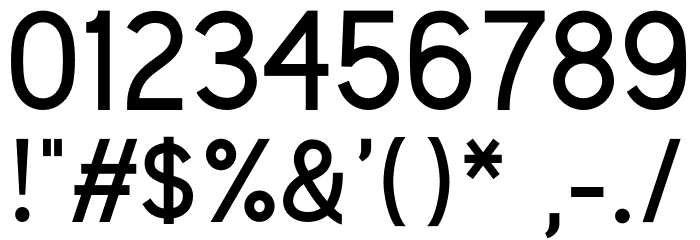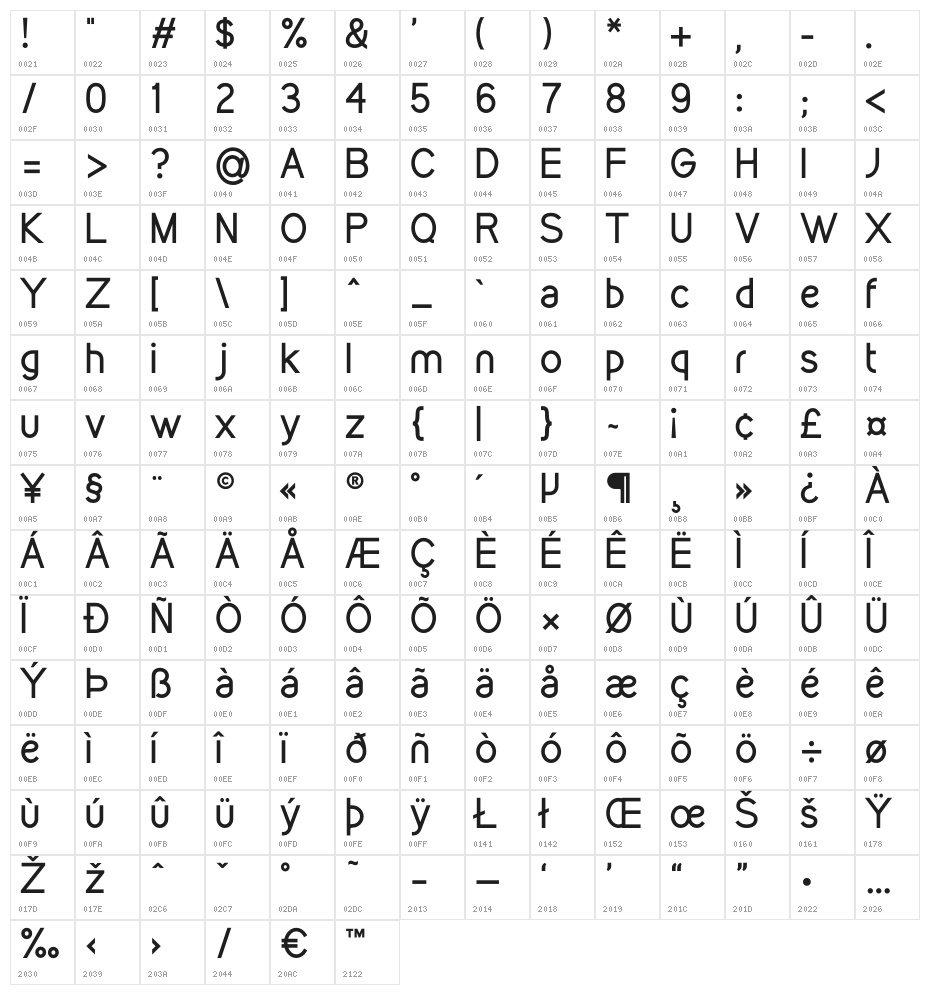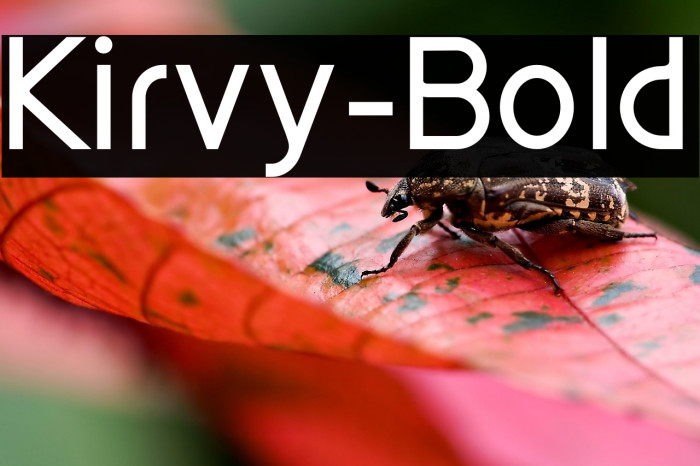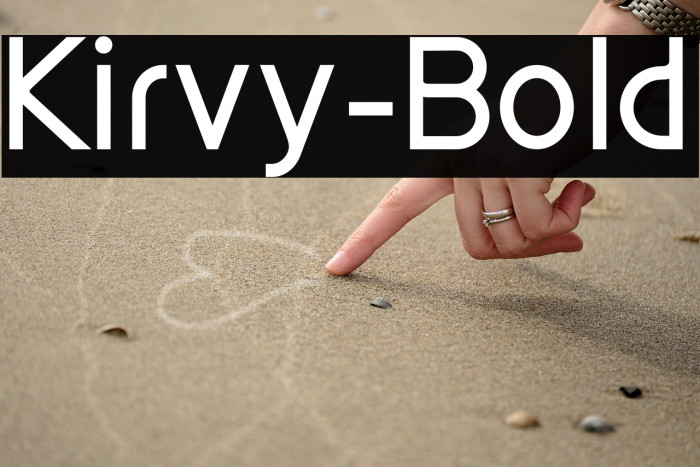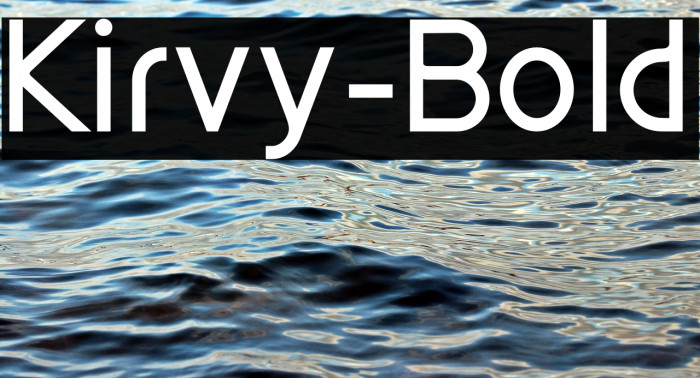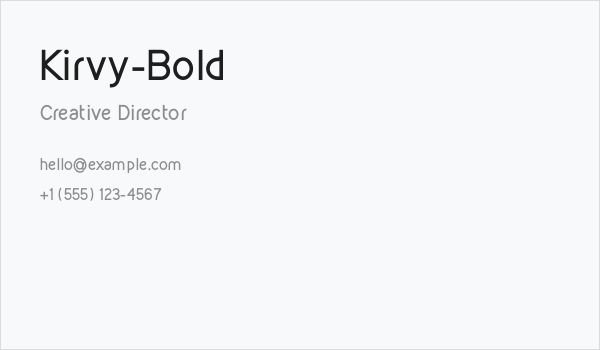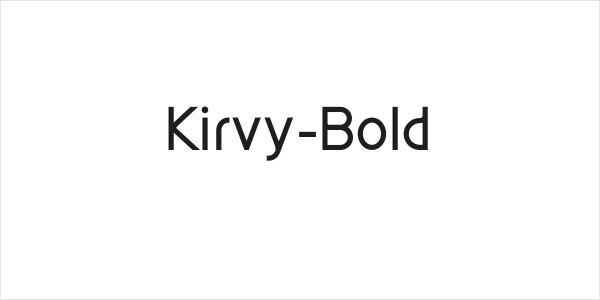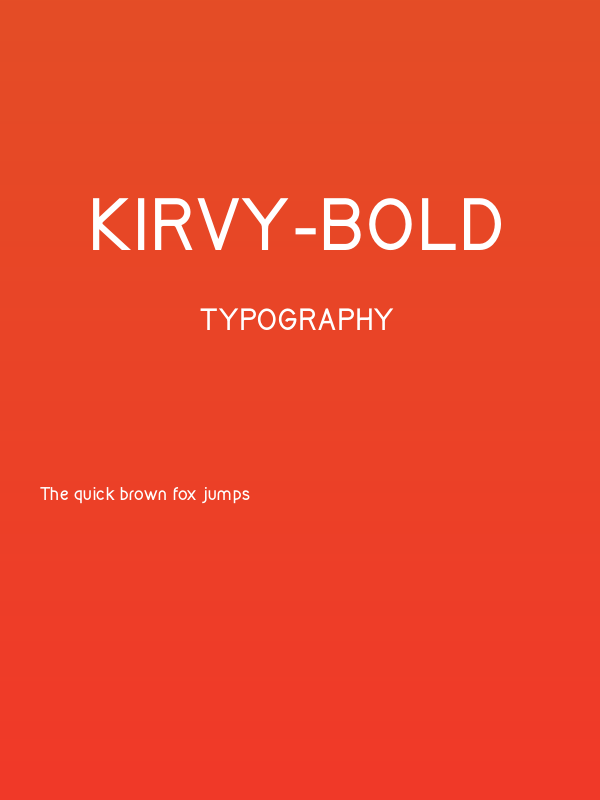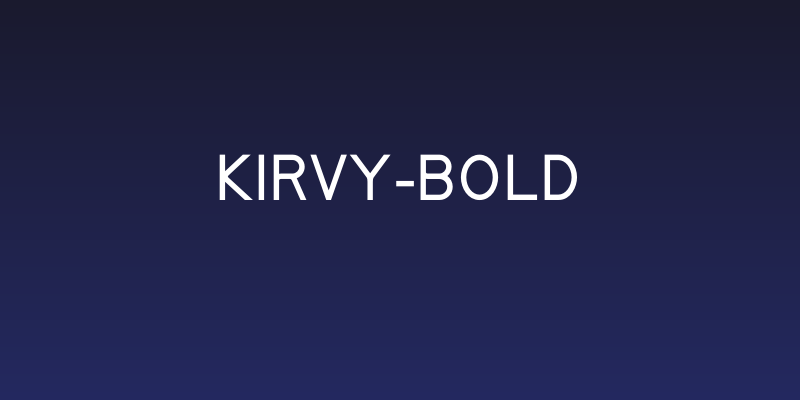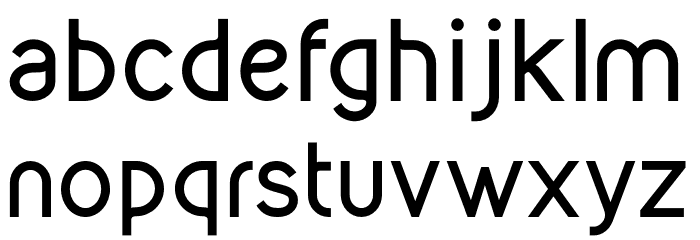
Kirvy-Bold Font
Kirvy-Bold Description
This font features a clean and modern sans-serif style with a bold weight, making it highly legible and impactful. The characters are well-proportioned with a consistent stroke width, providing a balanced and harmonious appearance. The uppercase and lowercase letters maintain a uniform height, contributing to its sleek and contemporary look. The numerals are clear and distinct, ensuring readability in various contexts. Special characters are designed with precision, complementing the overall aesthetic. This font is versatile, suitable for a wide range of applications from digital to print media.